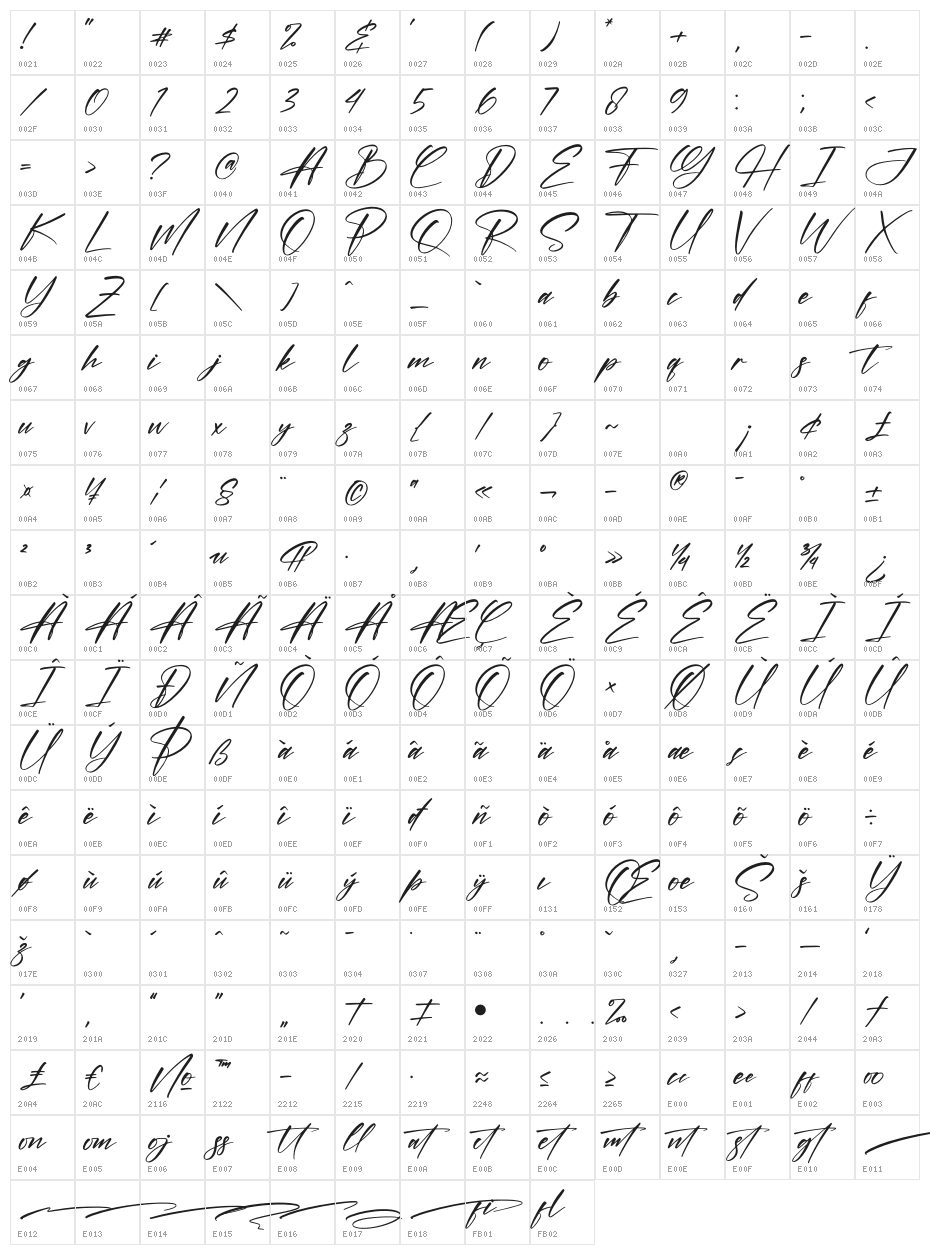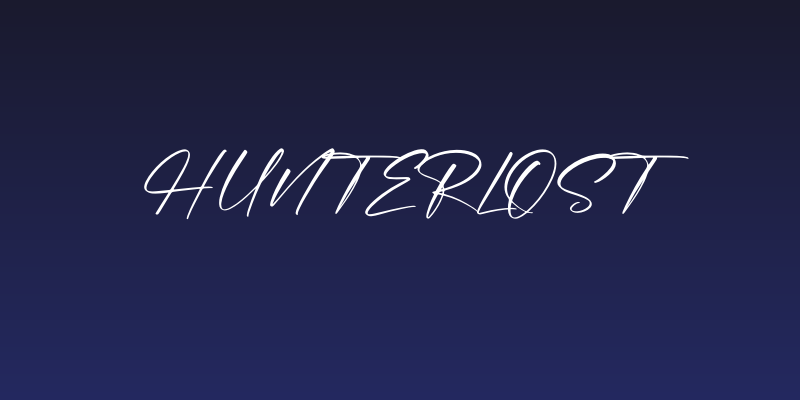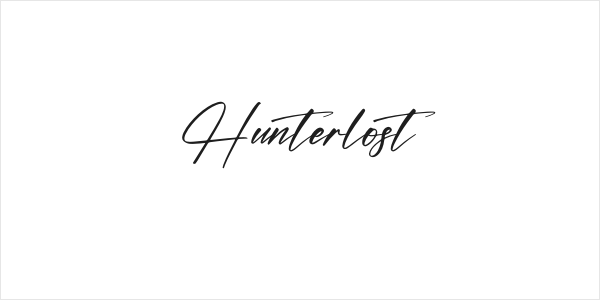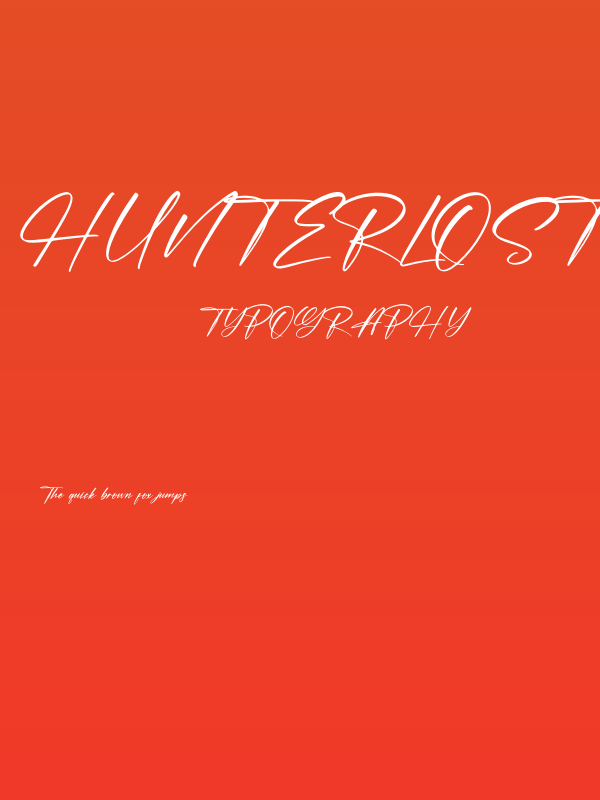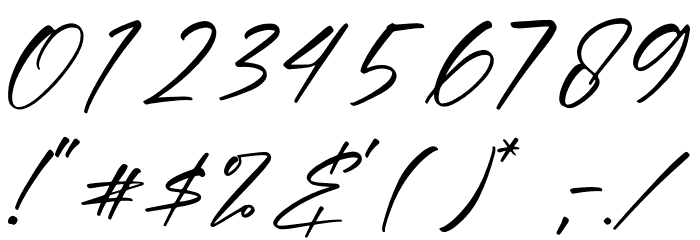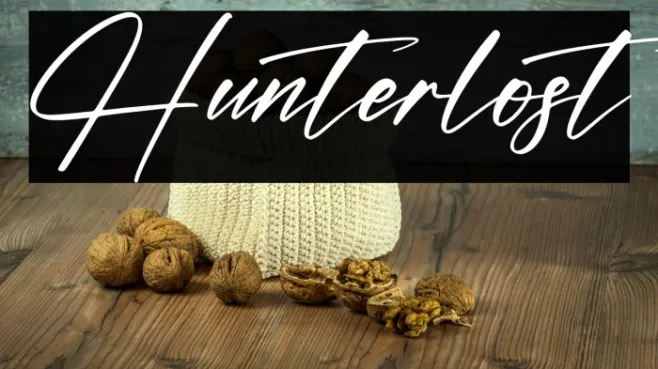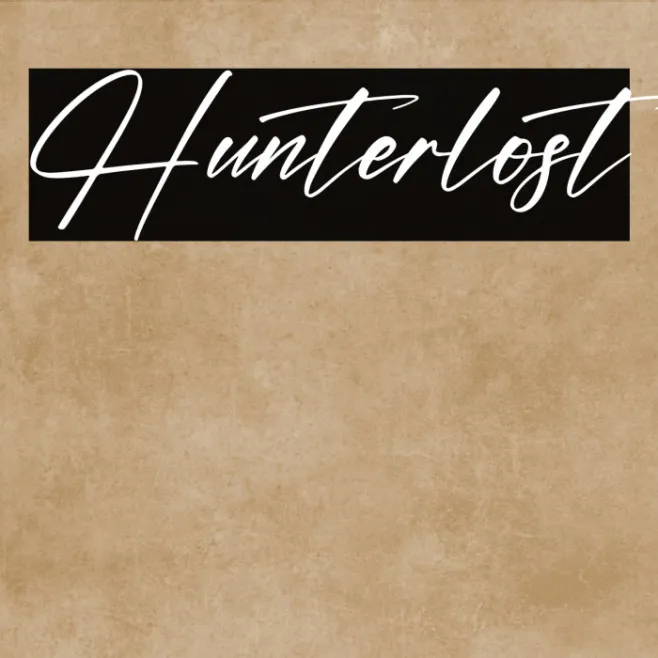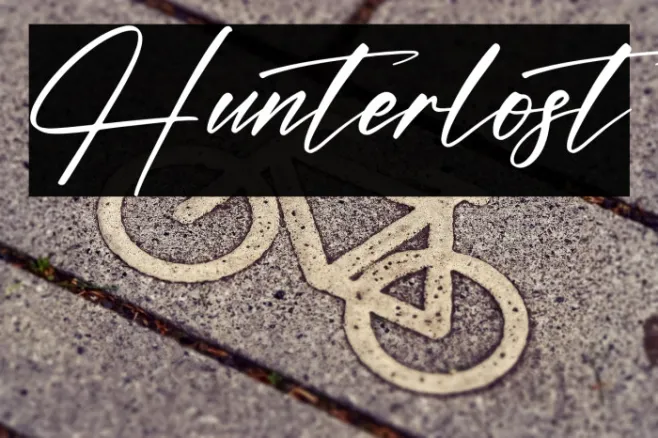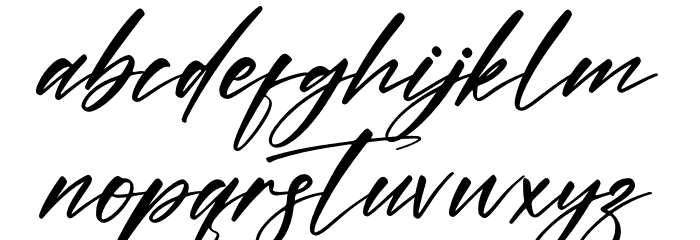
Hunterlost Font
Hunterlost Description
This font features a dynamic and fluid script style, characterized by its elegant and flowing letterforms. The uppercase letters are slightly more structured, while the lowercase letters exhibit a more casual and freeform appearance. The strokes are smooth and connected, giving the text a handwritten feel. The numbers and special characters maintain the same fluidity, ensuring consistency across all elements. This font is ideal for projects that require a personal touch, such as invitations, greeting cards, or branding materials. Its stylish and modern aesthetic makes it versatile for various design applications.
| Proposed Projects | Ideal for invitations, greeting cards, branding, and personal projects. |